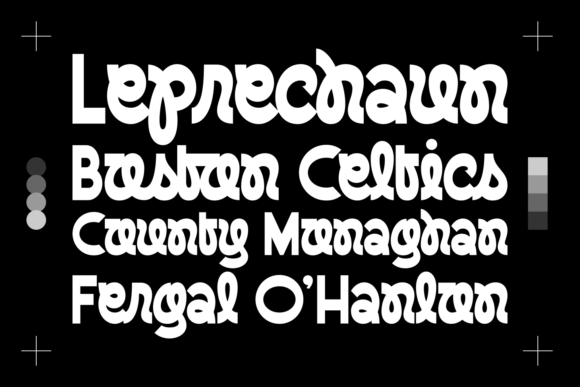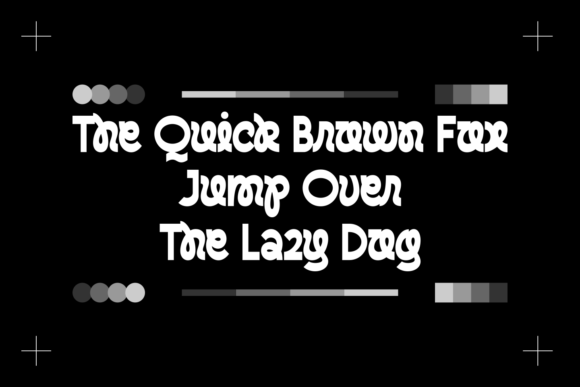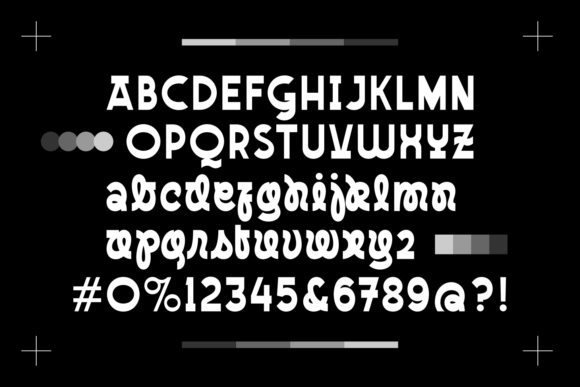
Introduction to Ohanlon Script Font
Ohanlon Script is a fun experimental script font.
With a combination of sans uppercase and script lowercase and a subtle hint of reverse-contrast personality, this font will give a dramatic feel to your design .